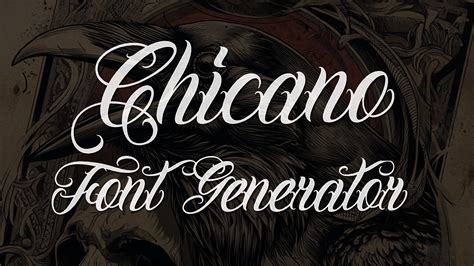
Chicano Style Font Generator. Web our chicano font generator will take you to different font sizes, colors, and images which you can download and use in your web design, school project, or even your own logo. Web chicano font generator is a tool for creating chicano fonts and chicano tattoos.
Users can choose from various fonts inspired by chicano art and. It is used for graffiti and. Chicano letters are commonly used for tattoos, graffiti, and other lettering designs. It is a highly stylized form of lettering that often includes colorful and intricate designs and extracts. Web you can usually find native mexican artwork with the chicano text, which gives the tattoo a completely spanish “feel”. Web chicano font generator is a tool for creating chicano fonts and chicano tattoos. Web our chicano font generator offers a range of customization options, allowing users to experiment with different lettering styles, sizes, and effects. Our online font generator will show your chicano font choice in a larger size, and you can take a. Web our chicano font generator will take you to different font sizes, colors, and images which you can download and use in your web design, school project, or even your own logo.
Users can choose from various fonts inspired by chicano art and. Users can choose from various fonts inspired by chicano art and. Web our chicano font generator will take you to different font sizes, colors, and images which you can download and use in your web design, school project, or even your own logo. It is a highly stylized form of lettering that often includes colorful and intricate designs and extracts. Web our chicano font generator offers a range of customization options, allowing users to experiment with different lettering styles, sizes, and effects. Web you can usually find native mexican artwork with the chicano text, which gives the tattoo a completely spanish “feel”. It is used for graffiti and. Our online font generator will show your chicano font choice in a larger size, and you can take a. Chicano letters are commonly used for tattoos, graffiti, and other lettering designs. Web chicano font generator is a tool for creating chicano fonts and chicano tattoos.